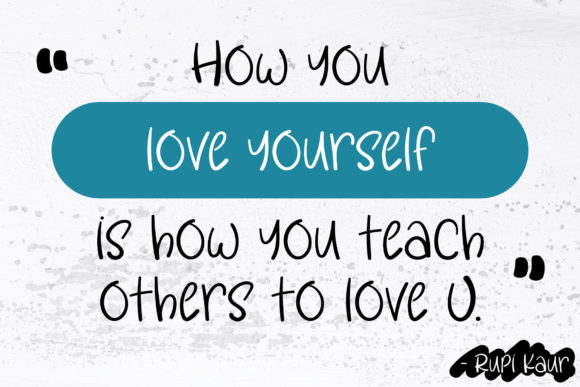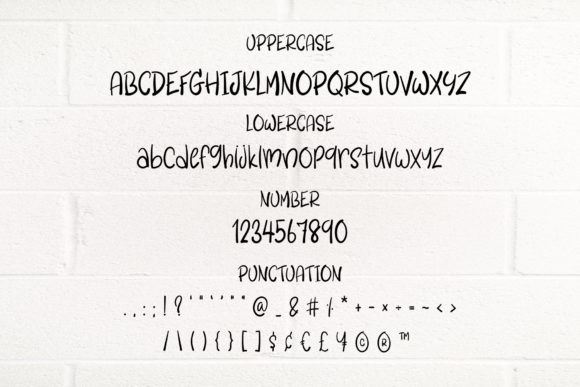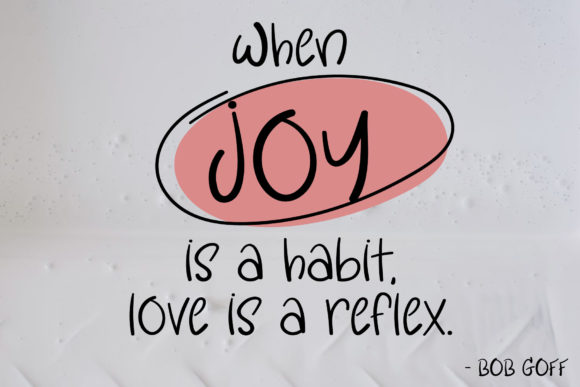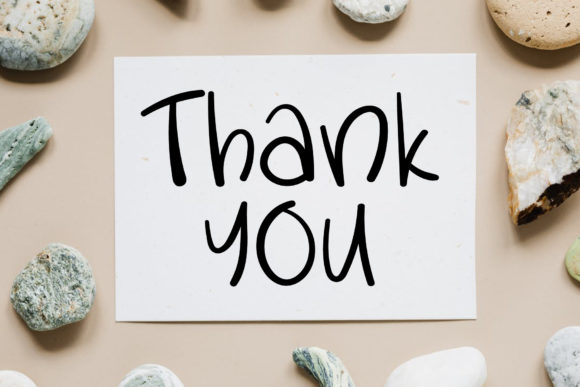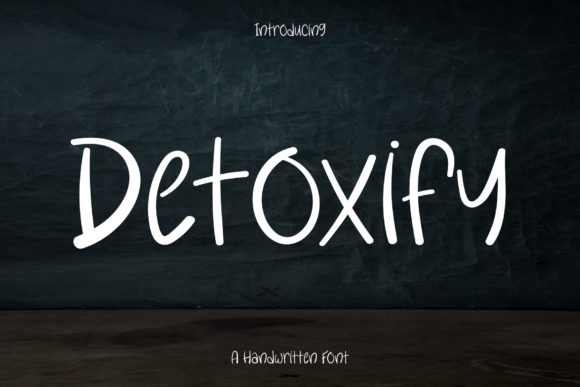
Introducing Detoxify Font: The Perfect Handwritten Font for Your Creative Projects
Are you tired of using the same old fonts for your designs and crafts? Look no further than Detoxify Font, a cool, readable, and quirky handwritten font that’s perfect for adding a personal touch to your projects. In this article, we’ll take a closer look at Detoxify Font and explore its features, uses, and benefits for designers and crafters.
What is Detoxify Font?
Detoxify Font is a unique and charming handwritten font that’s designed to add a touch of personality to your designs. Its quirky and playful style makes it perfect for cartoon-related designs, children’s games, and any other project that requires a fun and whimsical touch. The font is highly readable, making it suitable for use in a variety of contexts, from digital designs to print materials.
Key Features of Detoxify Font
So, what makes Detoxify Font so special? Here are some of its key features:
• Handwritten style: Detoxify Font has a genuine handwritten look that’s perfect for adding a personal touch to your designs.
• Quirky and playful: The font’s quirky and playful style makes it perfect for cartoon-related designs, children’s games, and other projects that require a fun and whimsical touch.
• Highly readable: Despite its quirky style, Detoxify Font is highly readable, making it suitable for use in a variety of contexts.
• Versatile: The font can be used for a wide range of projects, from digital designs to print materials.
Uses for Detoxify Font
So, what can you use Detoxify Font for? The possibilities are endless! Here are some ideas to get you started:
• Cartoon-related designs: Detoxify Font is perfect for cartoon-related designs, such as character illustrations, comics, and animated videos.
• Children’s games: The font’s playful and whimsical style makes it perfect for children’s games, puzzles, and activity sheets.
• Digital designs: Detoxify Font can be used for a wide range of digital designs, including social media graphics, blog posts, and website headers.
• Print materials: The font can also be used for print materials, such as brochures, flyers, and posters.
• Crafts: Detoxify Font is perfect for crafters who want to add a personal touch to their projects, such as handmade cards, scrapbooking, and DIY decorations.
Benefits of Using Detoxify Font
So, why should you use Detoxify Font for your projects? Here are some benefits:
• Adds a personal touch: Detoxify Font adds a personal touch to your designs and crafts, making them more unique and engaging.
• Stand out from the crowd: The font’s quirky and playful style helps your designs and crafts stand out from the crowd.
• Easy to read: Despite its quirky style, Detoxify Font is highly readable, making it easy for your audience to read and understand your message.
• Versatile: The font can be used for a wide range of projects, making it a great addition to your font library.
Font Name Detoxify Font
Author Wanida Toffy
In conclusion, Detoxify Font is a cool, readable, and quirky handwritten font that’s perfect for adding a personal touch to your designs and crafts. Its unique style and versatility make it suitable for a wide range of projects, from cartoon-related designs to print materials. Whether you’re a designer or crafter, Detoxify Font is a great addition to your font library.